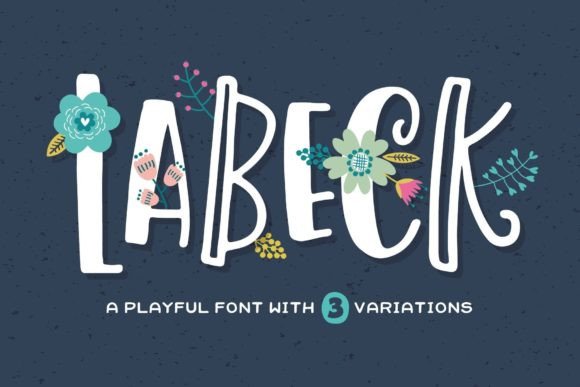
Step into the world of Labeck, a display font that bursts with creativity, warmth, and an undeniable charm.
With its three distinct variations – open, filled, and gradient – this playful font is your gateway to a universe of design possibilities. Whether you're a seasoned designer or just starting, Labeck empowers you to unleash your imagination and transform your projects into captivating masterpieces.
Born from the creative mind of Denise Chandler, Labeck is more than just a font; it's an artistic expression that reflects the beauty of home, the comfort of familiarity, and the joy of everyday moments.
Picture this: you're working on a design project that needs a touch of whimsy, a sprinkle of delight. Labeck's open variation beckons you to explore its delicate outlines, inviting you to fill them with vibrant colors, captivating patterns, or even images that speak to your heart. Let your creativity flow freely as you bring depth and dimension to your designs.
And when you want to make a bold statement, the filled variation of Labeck stands ready. Its solid, eye-catching forms demand attention, making them perfect for headlines, titles, and logos that are sure to leave a lasting impression.
But Labeck's creative journey doesn't stop there. The gradient variation takes you on an enchanting expedition through a spectrum of hues, adding a touch of magic to your designs. Imagine the gradient Labeck gracing your invitations, posters, or social media posts, captivating your audience with its dynamic and mesmerizing beauty.
The versatility of Labeck doesn't just lie in its three variations; it's also a font that thrives in harmony. Mix and match the variations to create a unique and cohesive look that reflects your personal style. Experiment with layering the open version atop the others, reveling in the symphony of colors that unfolds before your eyes.
With Labeck as your creative companion, you'll find yourself reaching for it time and again. Its playful nature makes it perfect for children's books, playful branding, and whimsical illustrations. It's a font that embraces the joy of life, inviting you to infuse your designs with happiness and laughter.
So, dive into the world of Labeck, let your creativity soar, and experience the sheer delight of transforming your projects into extraordinary works of art. Welcome to the Labeck family, where imagination reigns supreme.